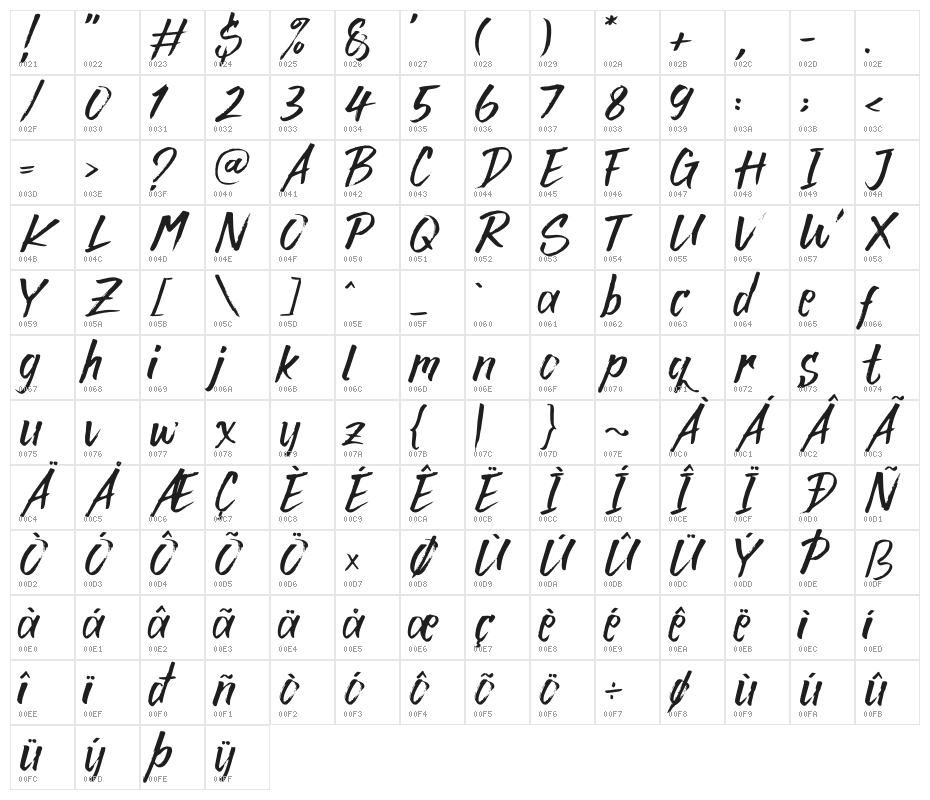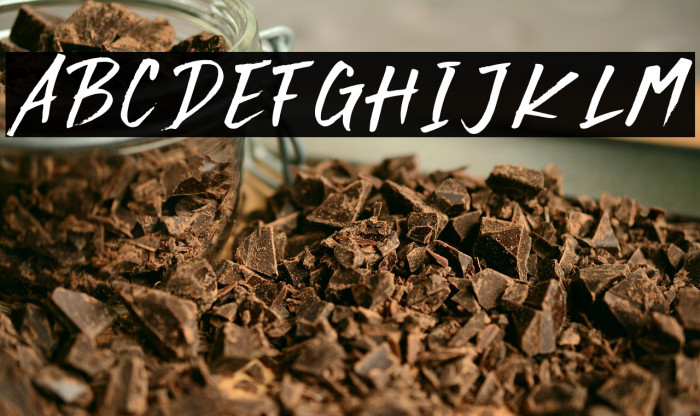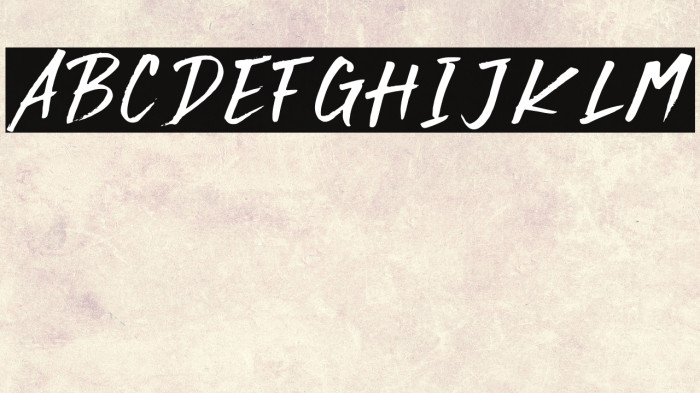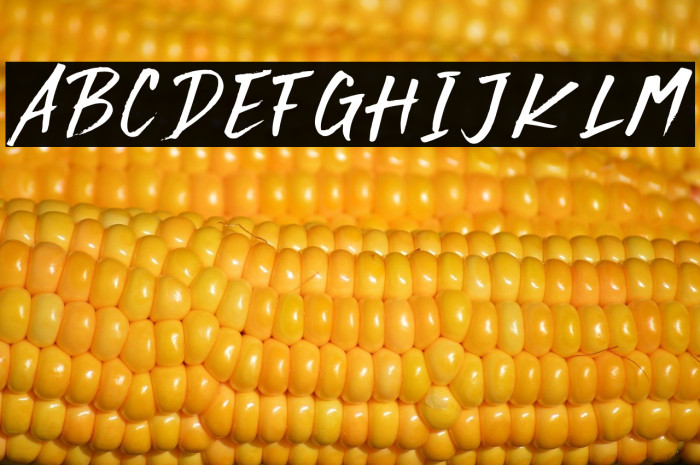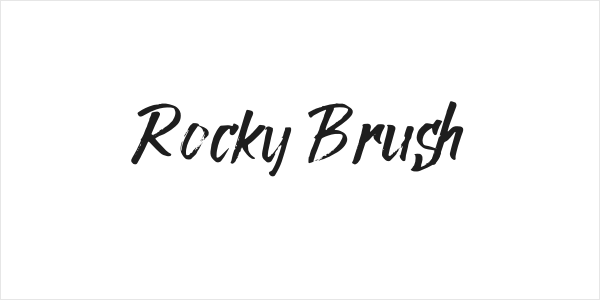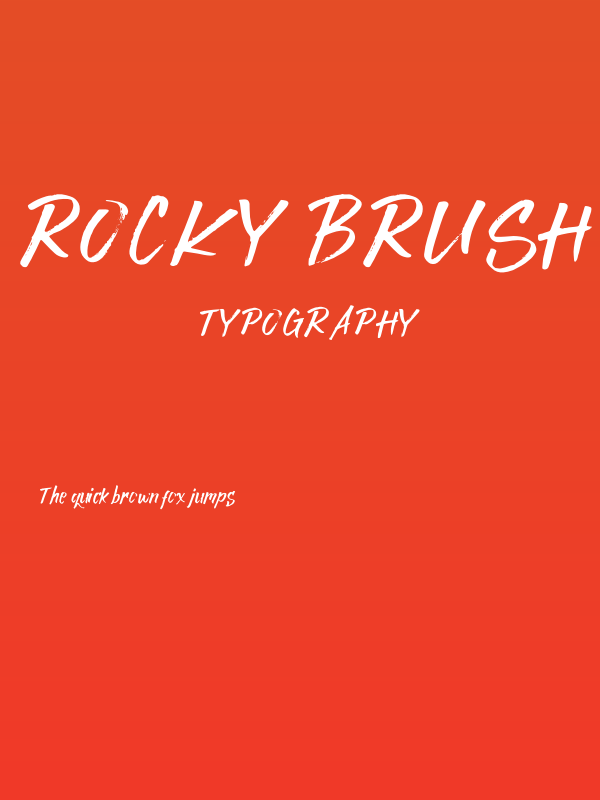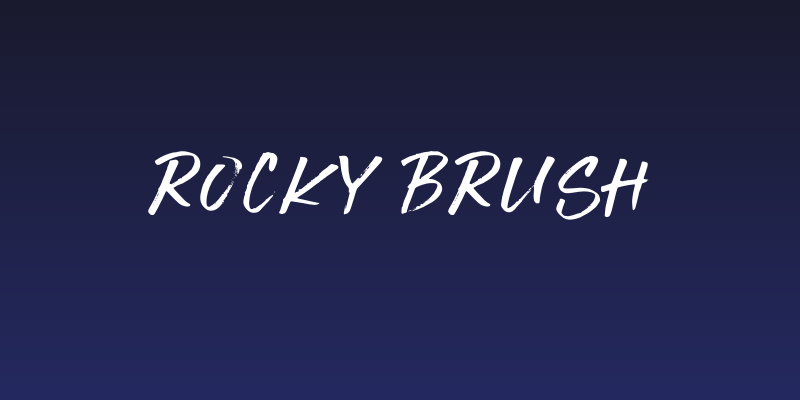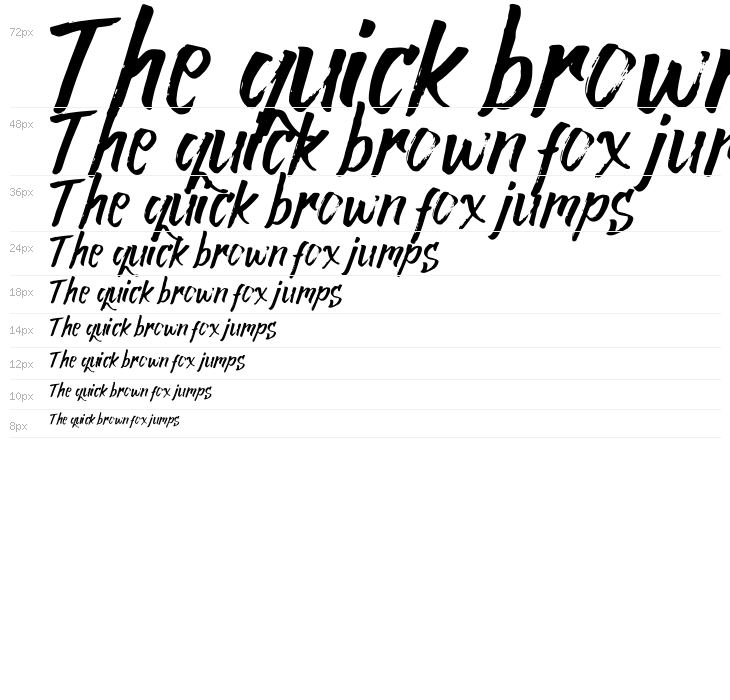
Rocky Brush Font
Rocky Brush Description
This font exudes a dynamic and energetic style, characterized by its bold brush strokes and expressive forms. The letters are crafted with a sense of movement and fluidity, giving it a hand-painted appearance. The uppercase and lowercase letters maintain a consistent style, with slightly irregular edges that add to its organic feel. The numerals and special characters follow the same brush-like aesthetic, ensuring a cohesive look across all glyphs. This font is perfect for projects that require a personal touch or a sense of artistic flair.